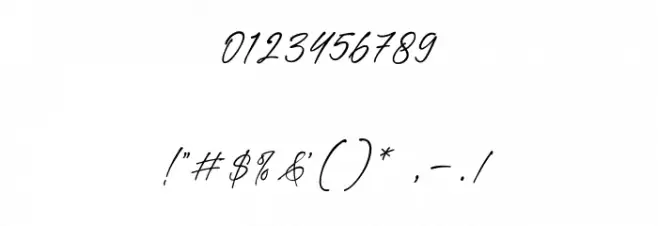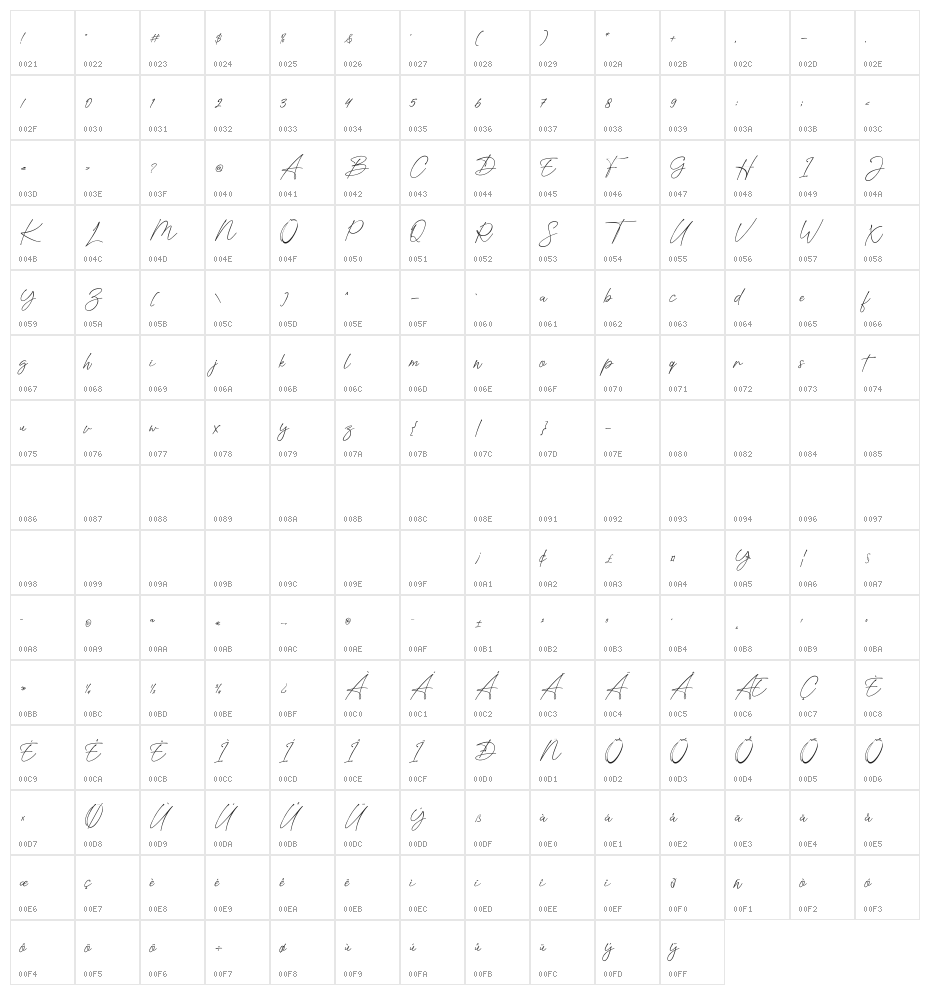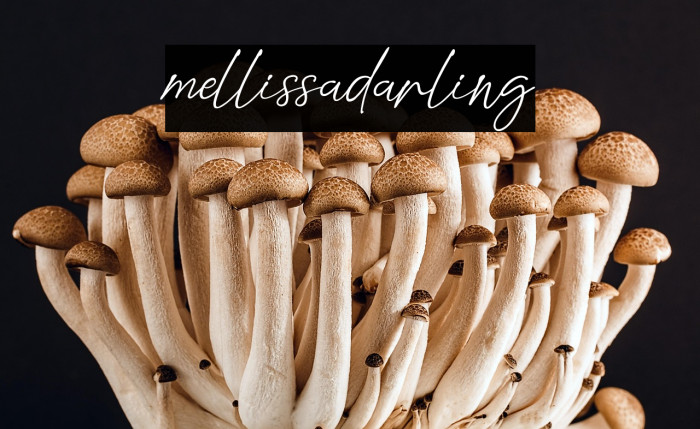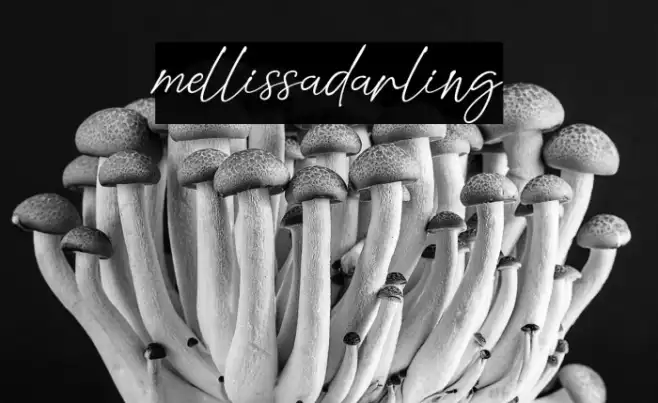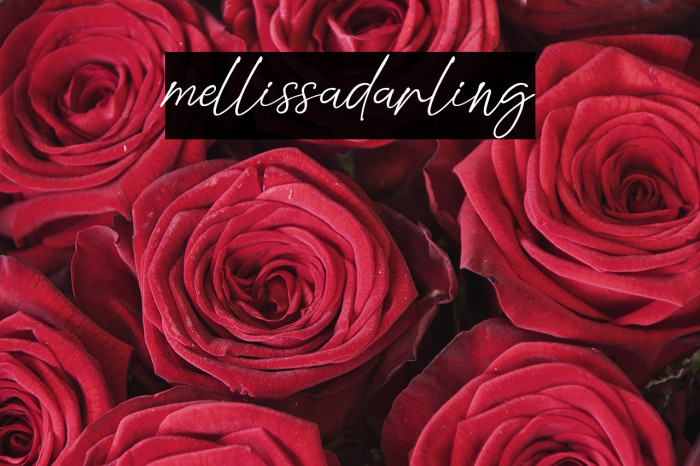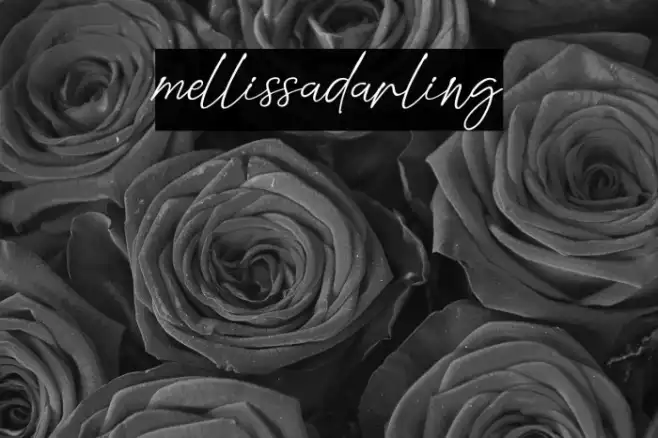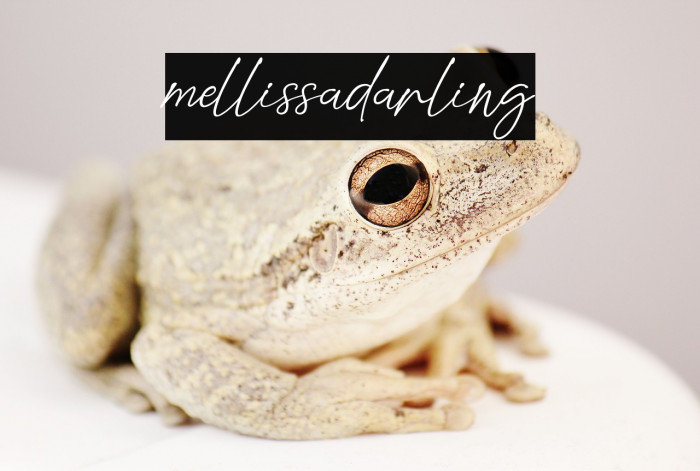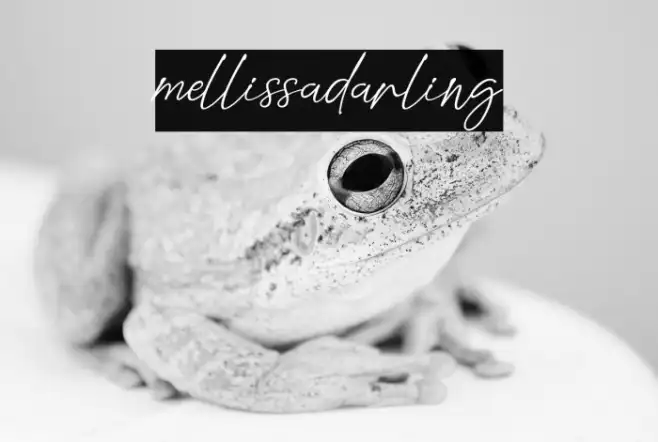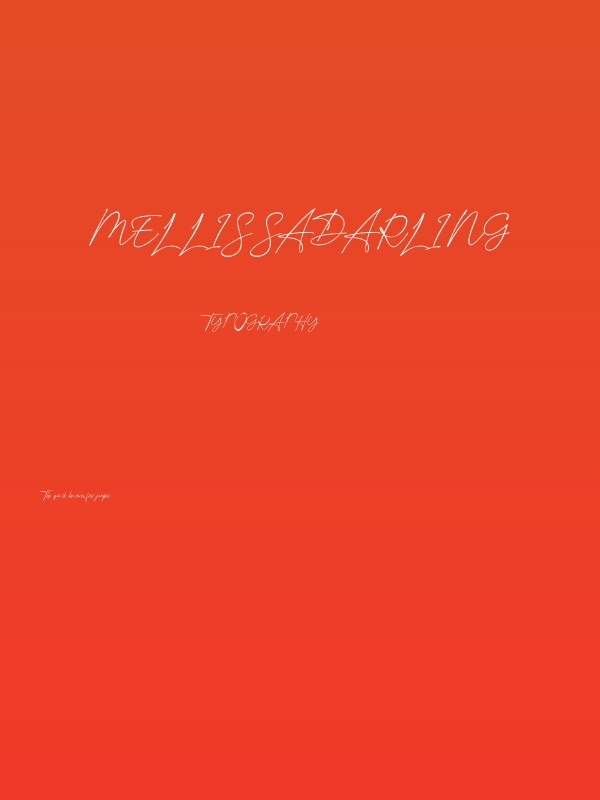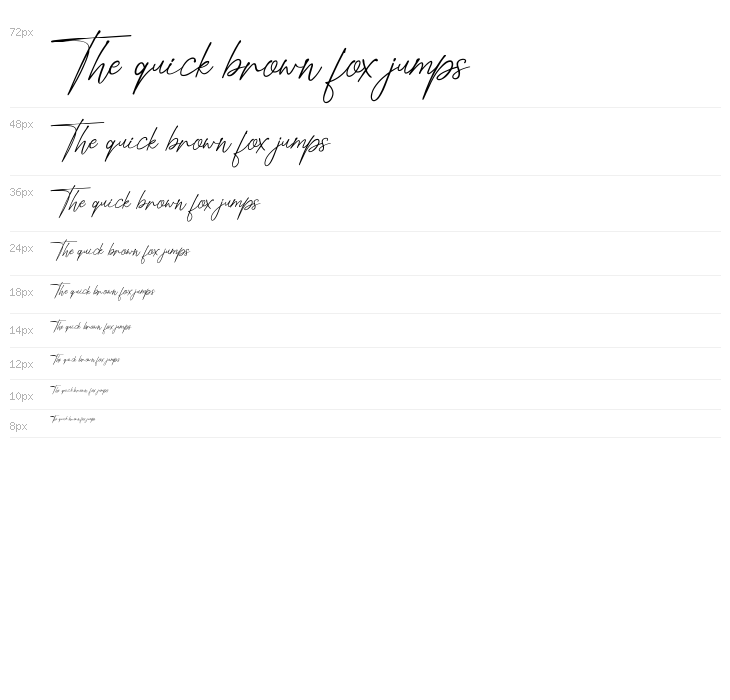
mellissadarling Font
This font exudes elegance and fluidity, characterized by its cursive, handwritten style. The letters are interconnected with smooth, flowing strokes that give a sense of continuity and grace. The uppercase letters are tall and slender, while the lowercase letters maintain a consistent flow, enhancing readability. The numerals and special characters are crafted with the same attention to detail, ensuring a cohesive look across all text. The overall appearance is sophisticated yet approachable, making it suitable for a variety of applications.
Overall StyleElegant, Handwritten
Use CaseInvitations, Branding, Packaging
Proposed ProjectsIdeal for wedding invitations, greeting cards, personal branding, and elegant packaging designs.